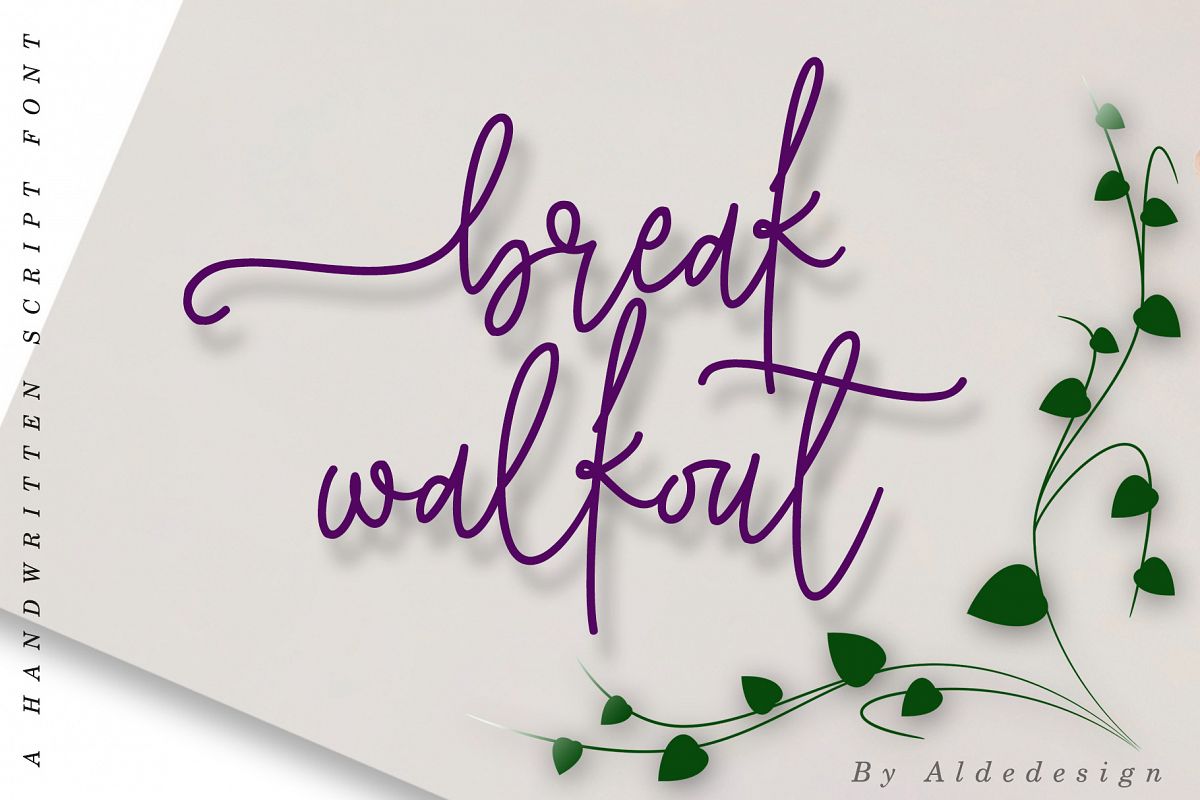
Break Walkout
Break Walkout is beautiful signature script made by depth love.
Break Walkout with natural handwriting touch is suitable for you who needs a typeface for Headline, Apparel, Invitation, Branding, Wedding, Logo Design, Lettering, Logotype, Clothing, Poster, Magazine and other design project.What's Included :